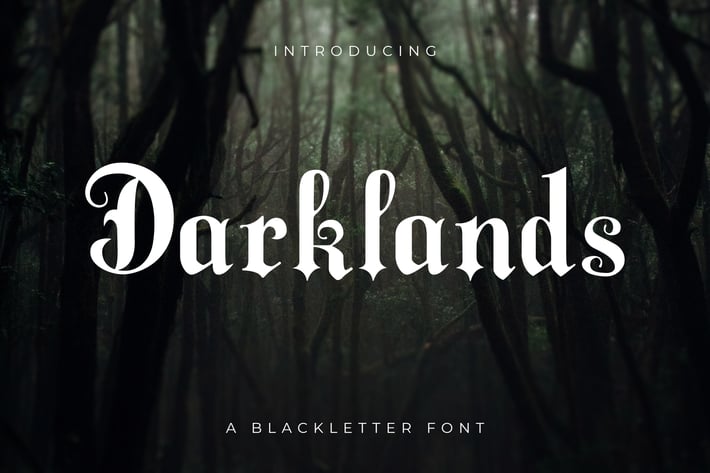
Darklands - A Blackletter Font
Darklands is inspired by authentic old Gothic Scripts fonts.
Suits perfectly for all kinds of vintage designs and adding that Old English style to your designs.
Works best for titles and posters.